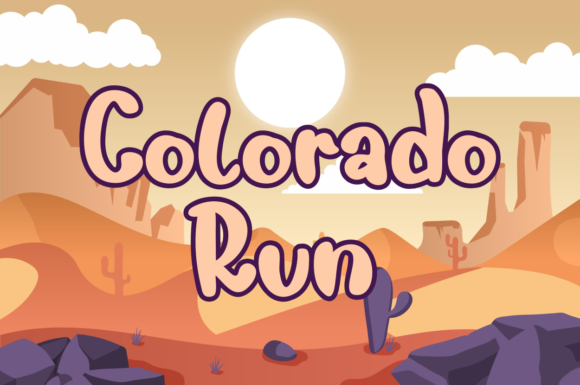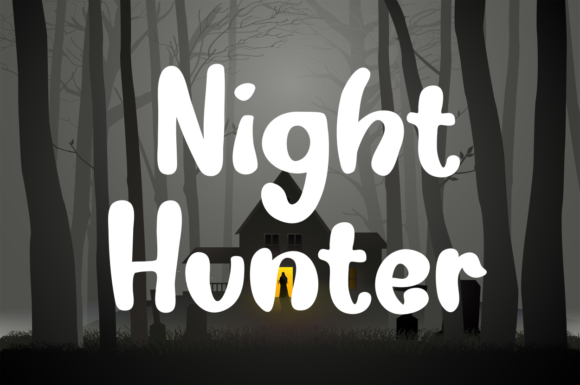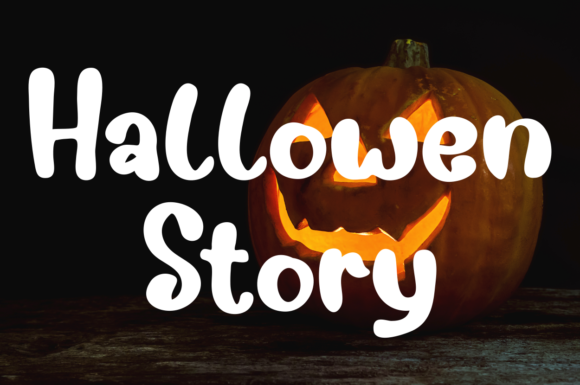
Adventure Blues Font
About Adventure Blues Font
Adventure Blues is a delightful and playful handwritten font that brings a sense of fun and whimsy to your designs. With its cute and round letterforms, this font is perfect for children-themed designs and projects that require a touch of playfulness.
The rounded and friendly shapes of Adventure Blues create a sense of warmth and approachability. The letters have a smooth and consistent stroke, giving the font a cohesive and harmonious look. The overall aesthetic is cheerful and inviting, making it an ideal choice for designs targeted towards children and young audiences.
This font is particularly well-suited for projects that aim to capture the spirit of adventure and exploration. Whether you’re designing children’s book covers, playful illustrations, or vibrant posters, Adventure Blues adds a sense of excitement and joy to your creations. Its versatility also extends to various other applications, such as packaging, merchandise, and branding for child-oriented products.
When paired with bright and lively colors, Adventure Blues truly comes to life. The combination of the font’s rounded letterforms and vibrant hues creates a visually captivating and engaging experience. The font’s playful nature encourages creativity and imagination, making it an excellent choice for educational materials, games, and interactive media.
Adventure Blues is designed to be easy to read and understand, making it accessible to young readers. Its legibility ensures that important messages and information are conveyed effectively while maintaining a sense of fun and whimsy. The font’s versatility also allows for the creation of eye-catching headlines, titles, and logos that capture attention and leave a lasting impression.
In summary, Adventure Blues is a cute and round lettered handwritten font that brings a playful and whimsical touch to your designs. Perfect for children-themed projects, it adds a sense of fun and excitement to educational materials, books, illustrations, and more. Paired with bright colors, Adventure Blues creates an engaging and visually captivating experience that appeals to young audiences.